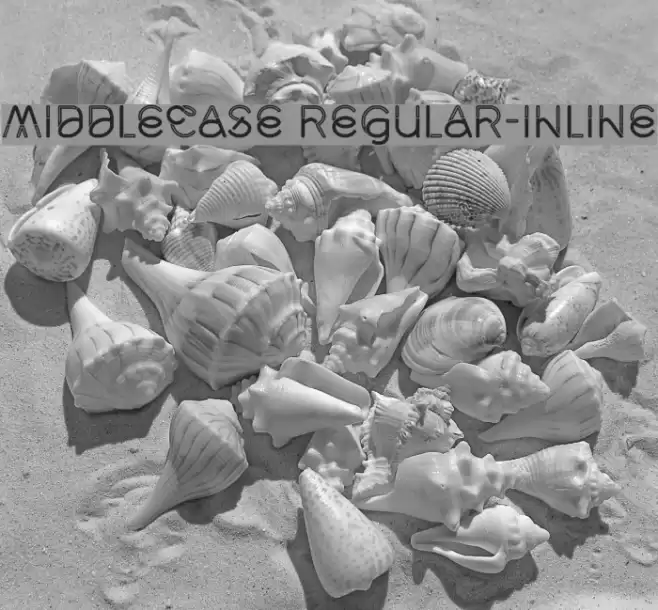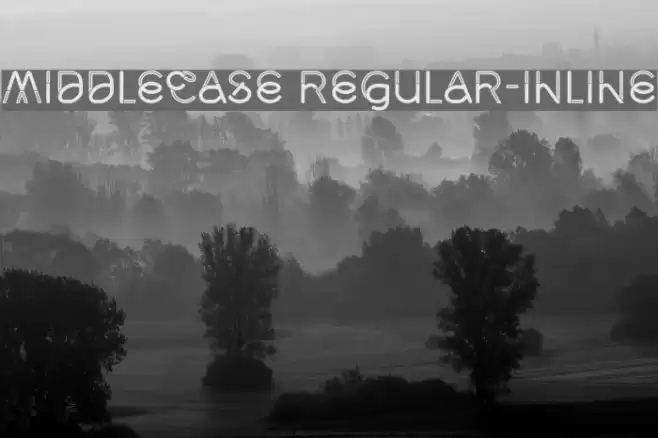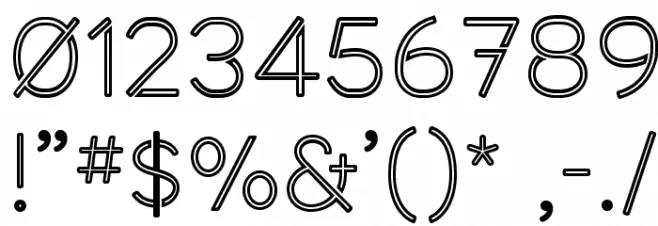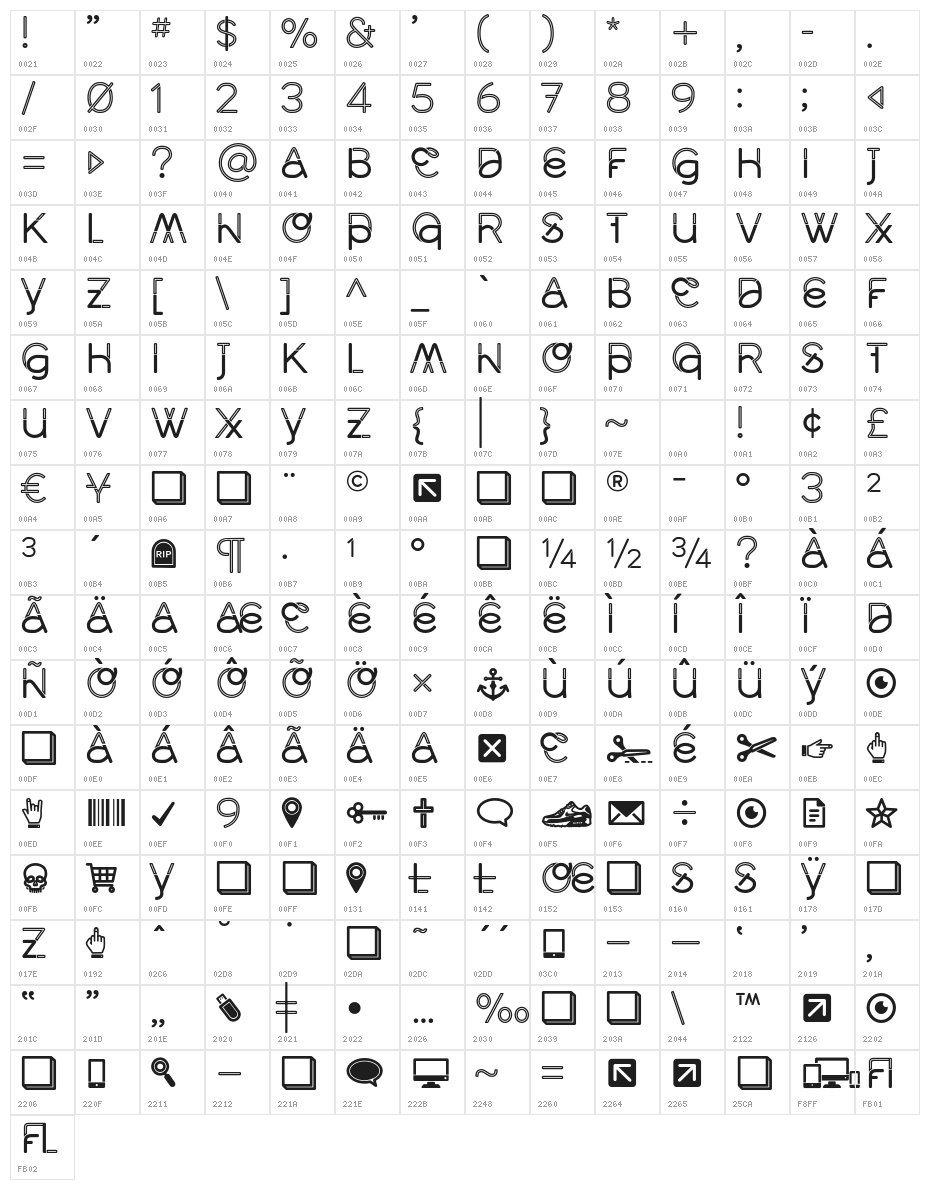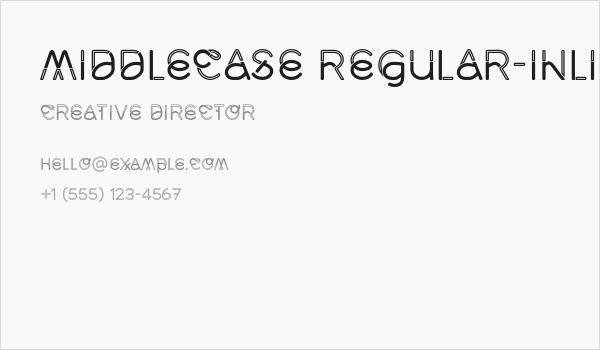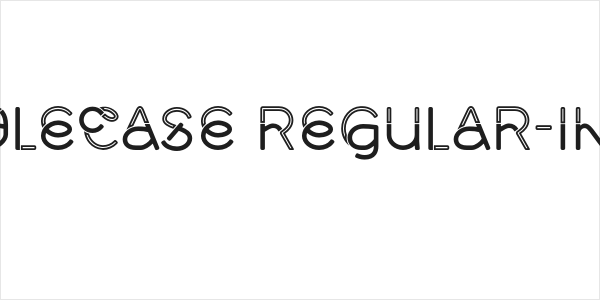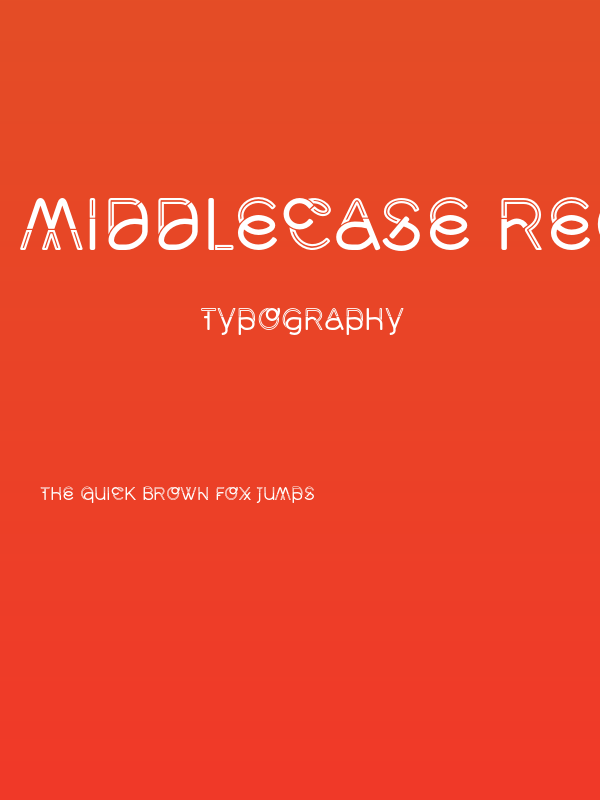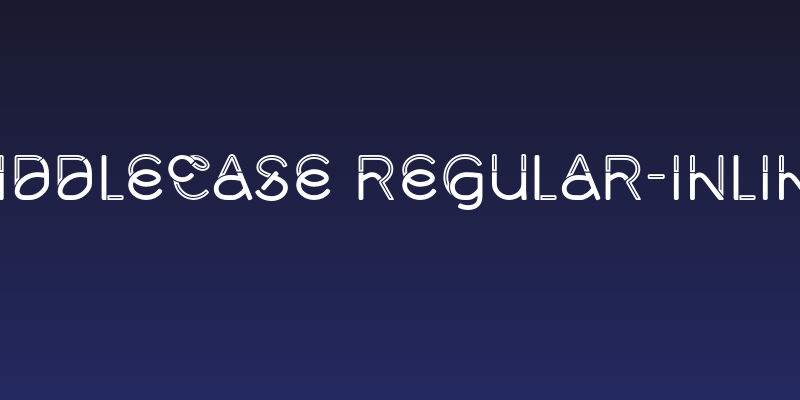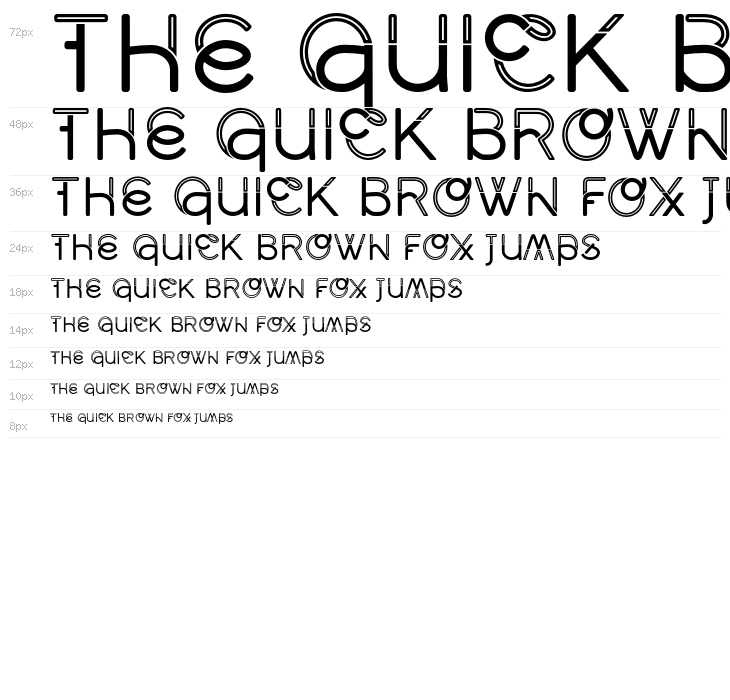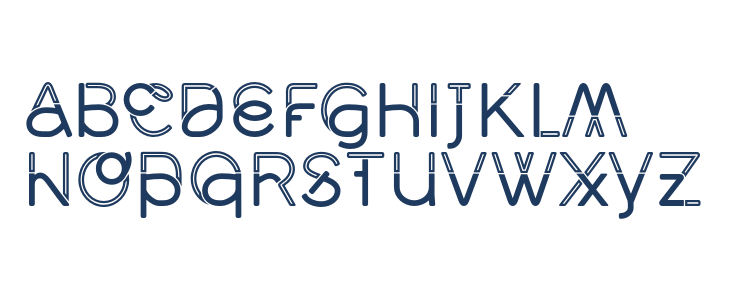
Middlecase Regular-Inline Font
Middlecase Regular-Inline Description
This font features a unique inline design that combines geometric shapes with a modern twist. The uppercase and lowercase letters have a consistent style, characterized by clean lines and a futuristic aesthetic. The numerals and special characters maintain this theme, offering a cohesive look across all glyphs. The inline detail adds a layer of depth and sophistication, making it stand out in any design project. Its distinct appearance makes it suitable for creative and contemporary applications, where a bold statement is desired.
A modern, geometric inline font with a futuristic style from Decorative fonts.
- Proposed Projects: Ideal for branding, posters, album covers, and digital media where a modern and unique look is desired.